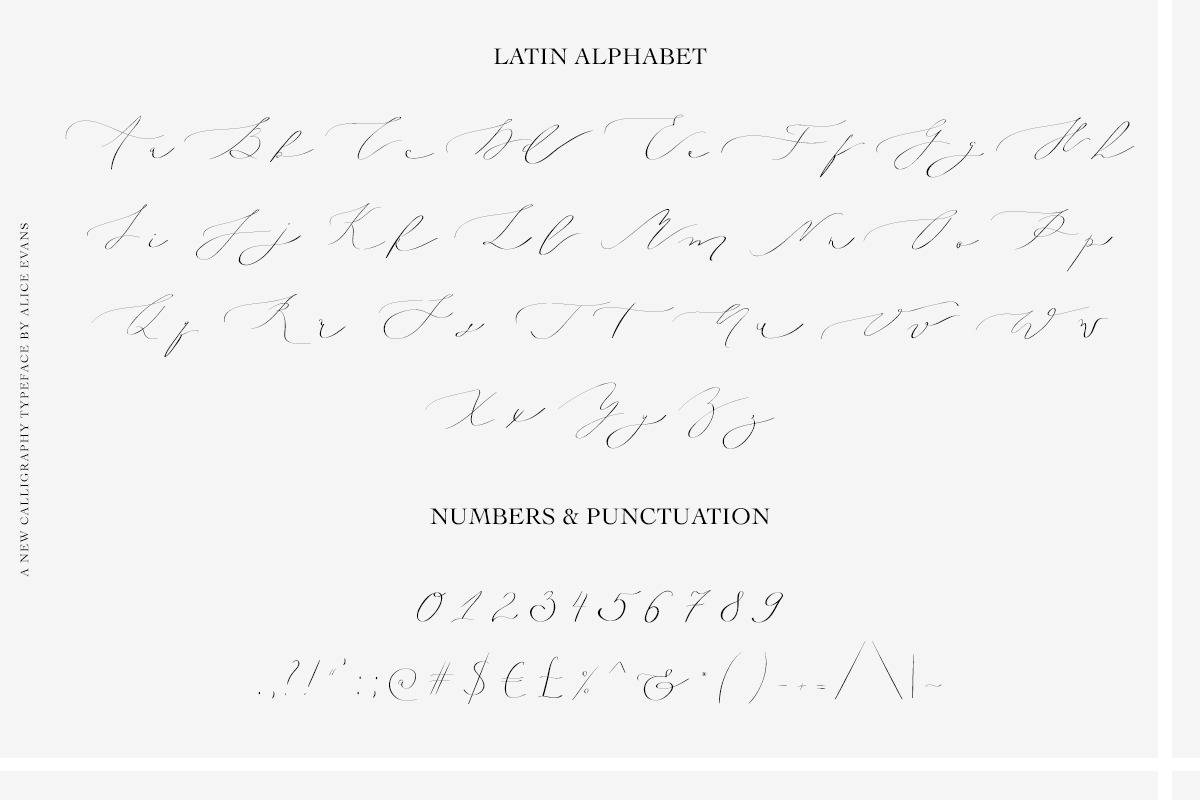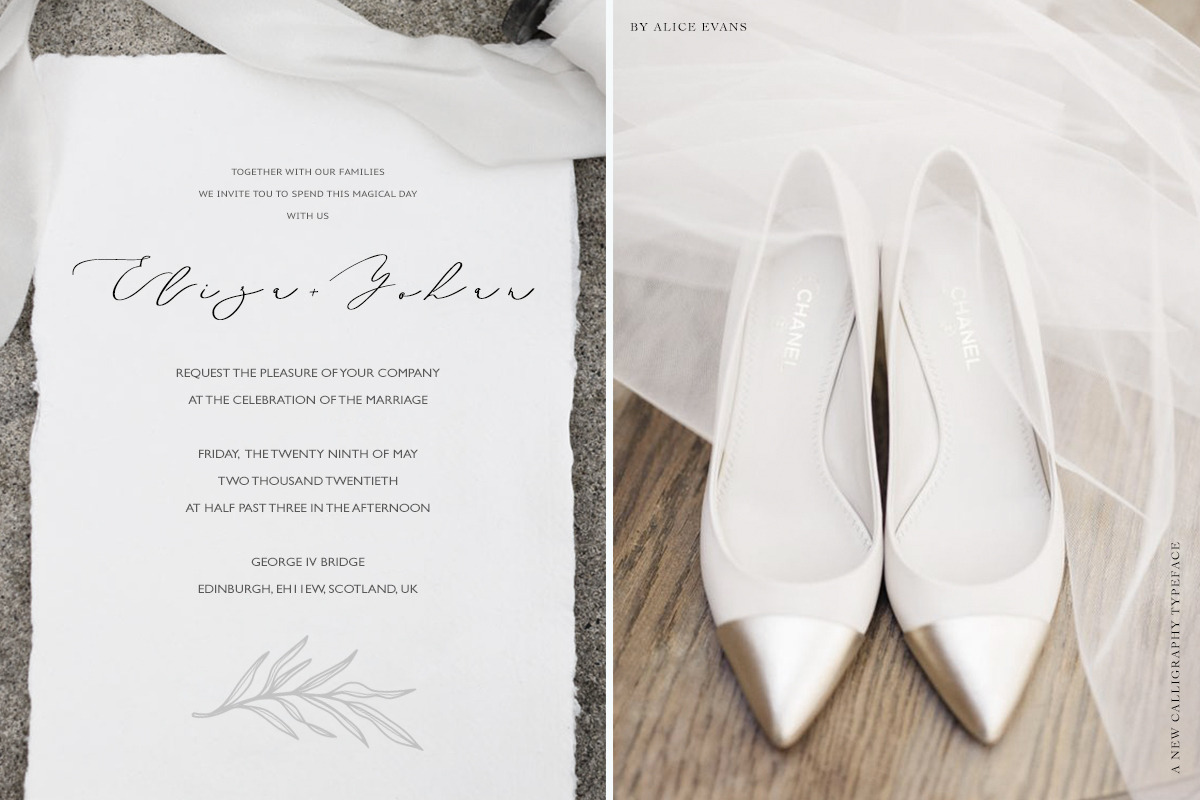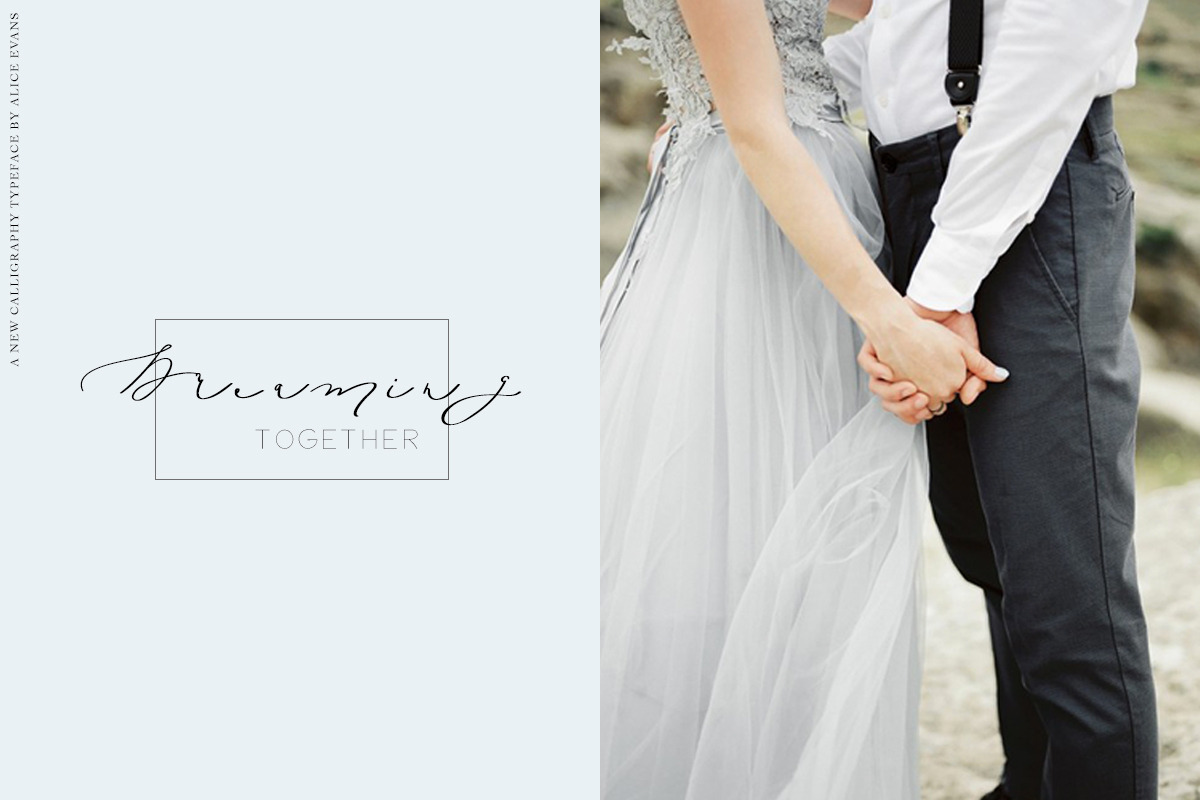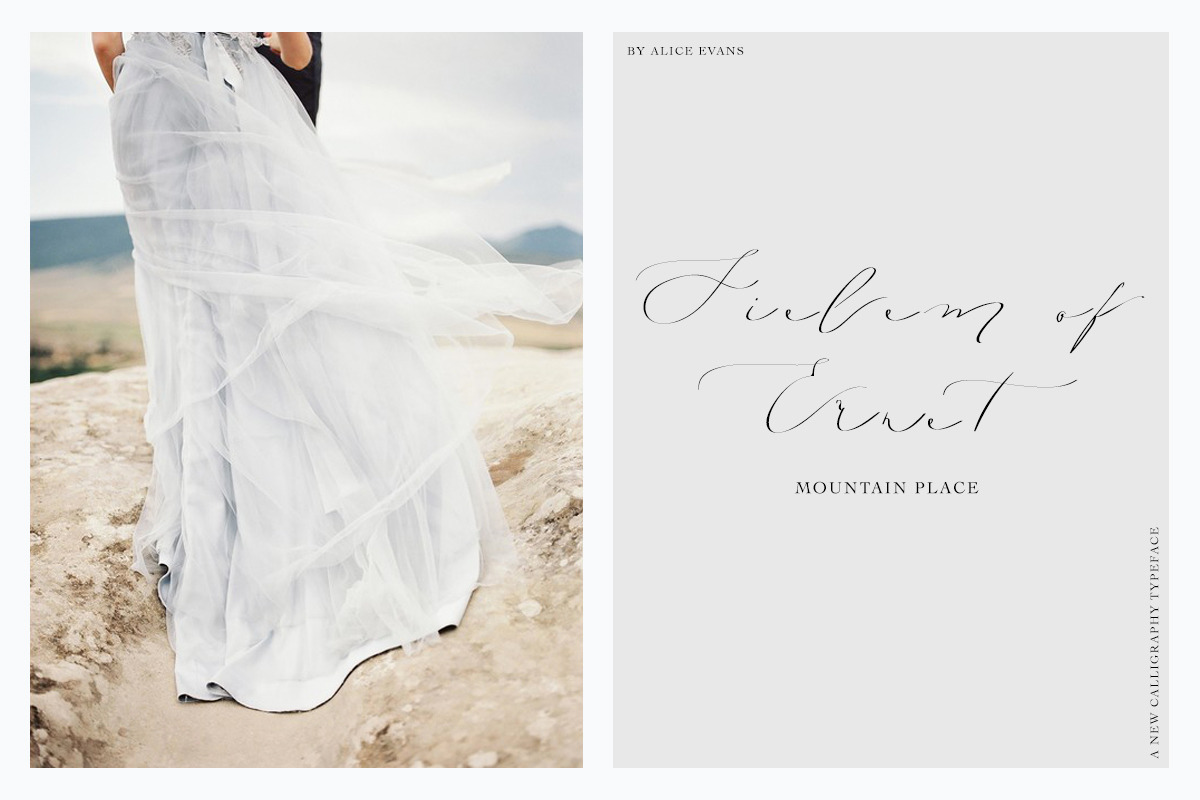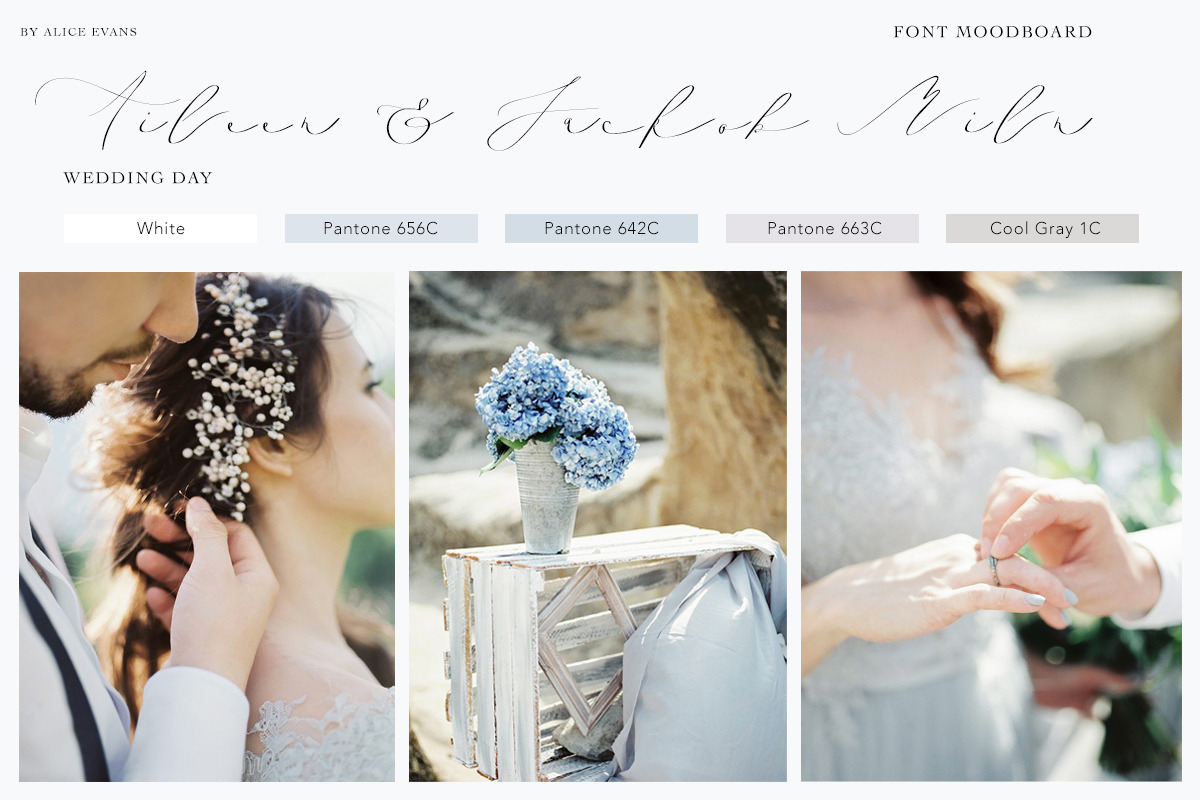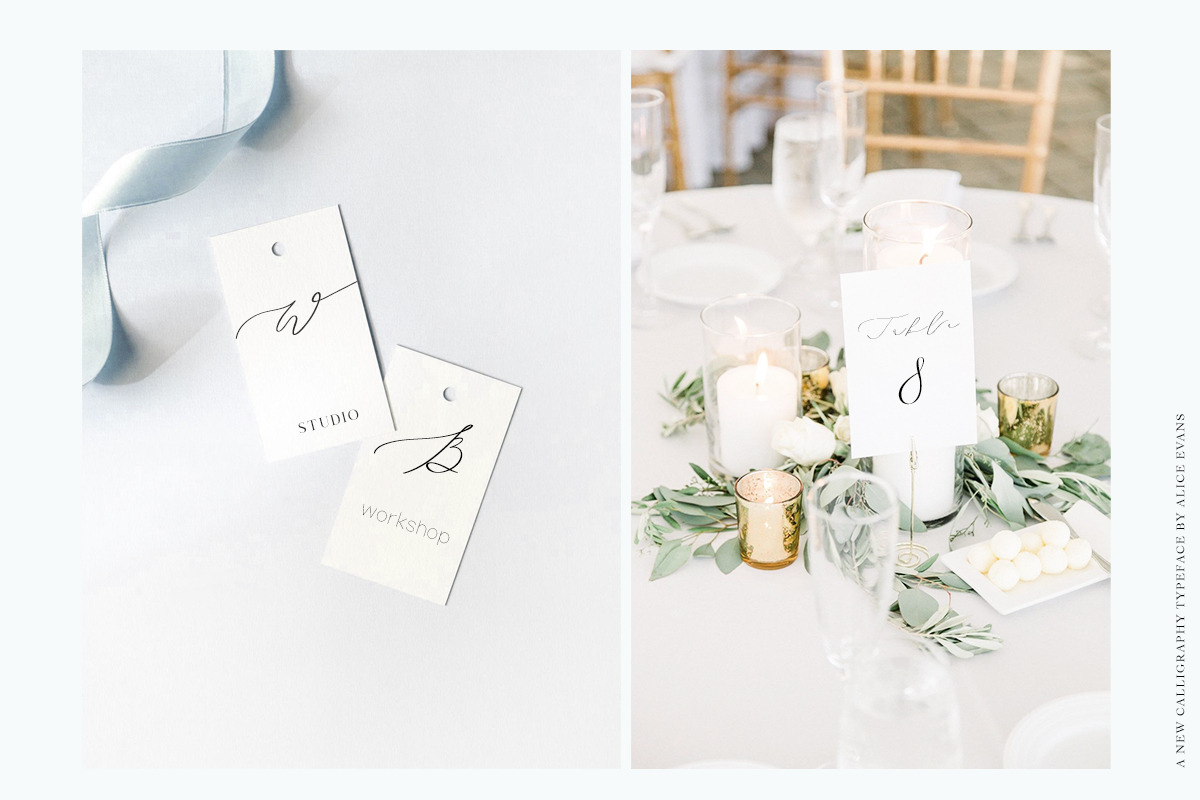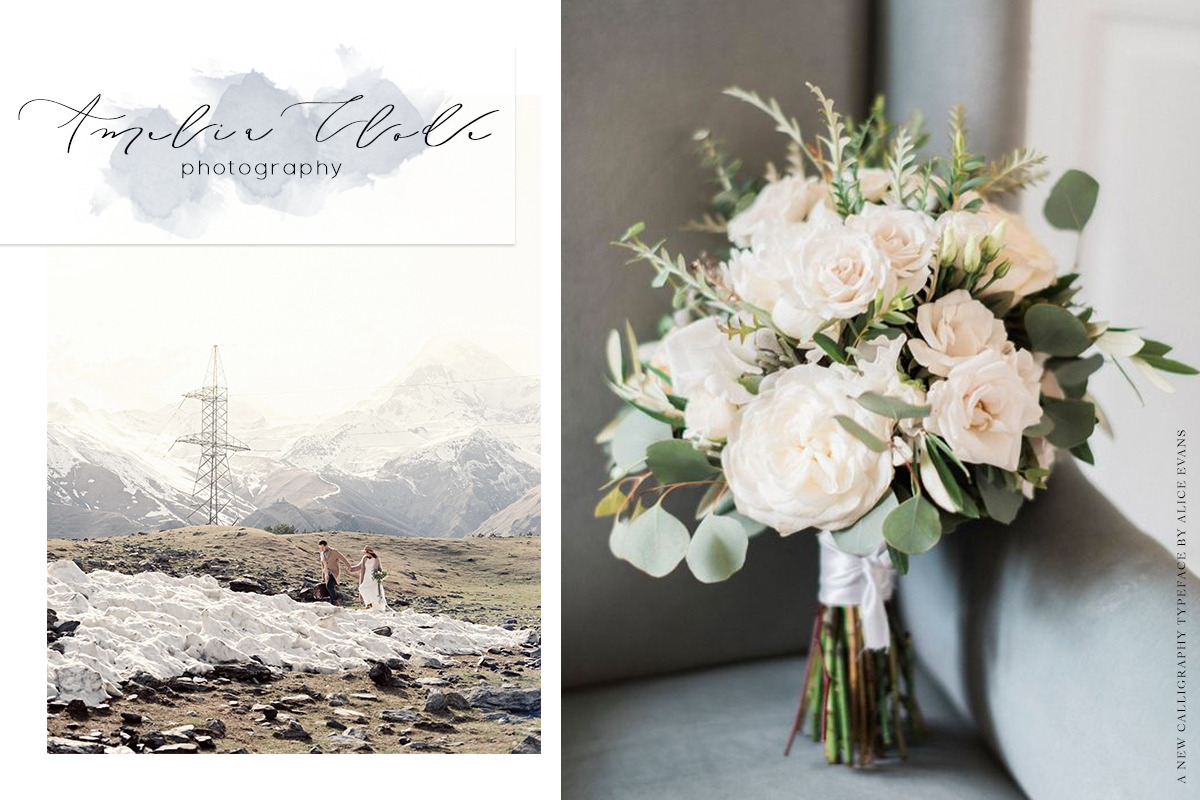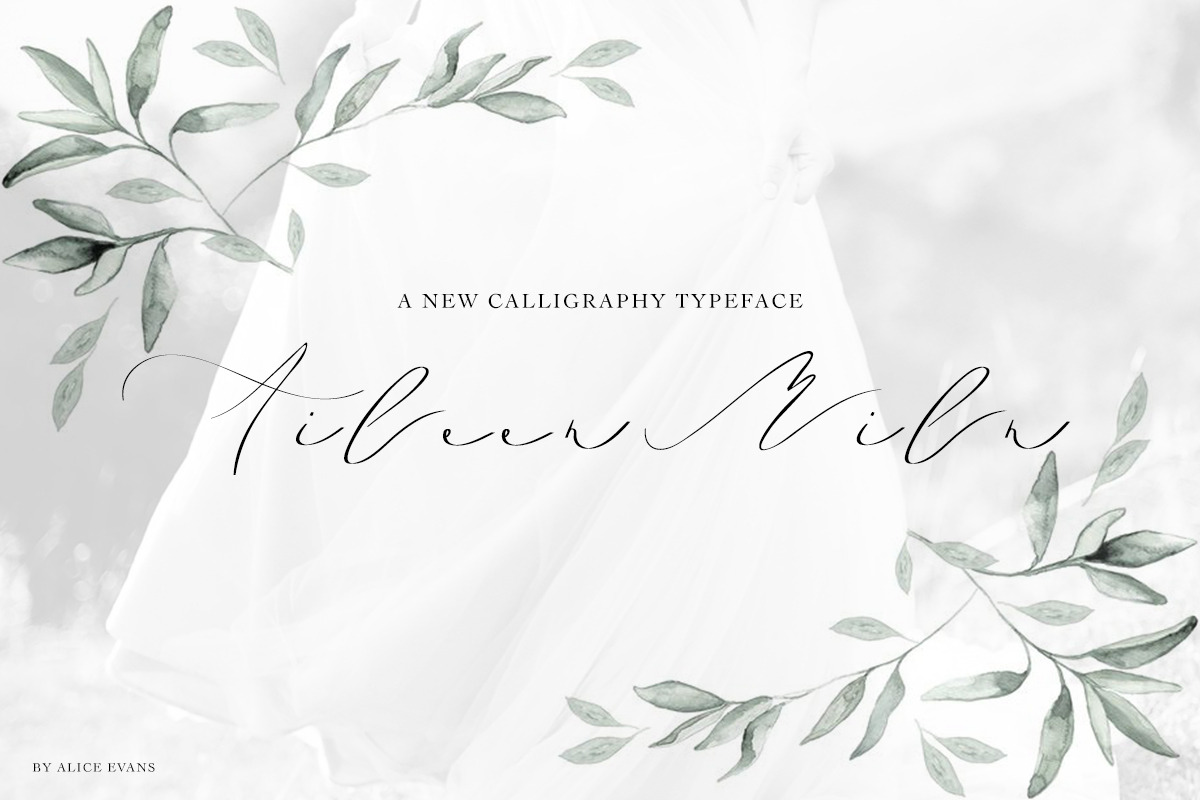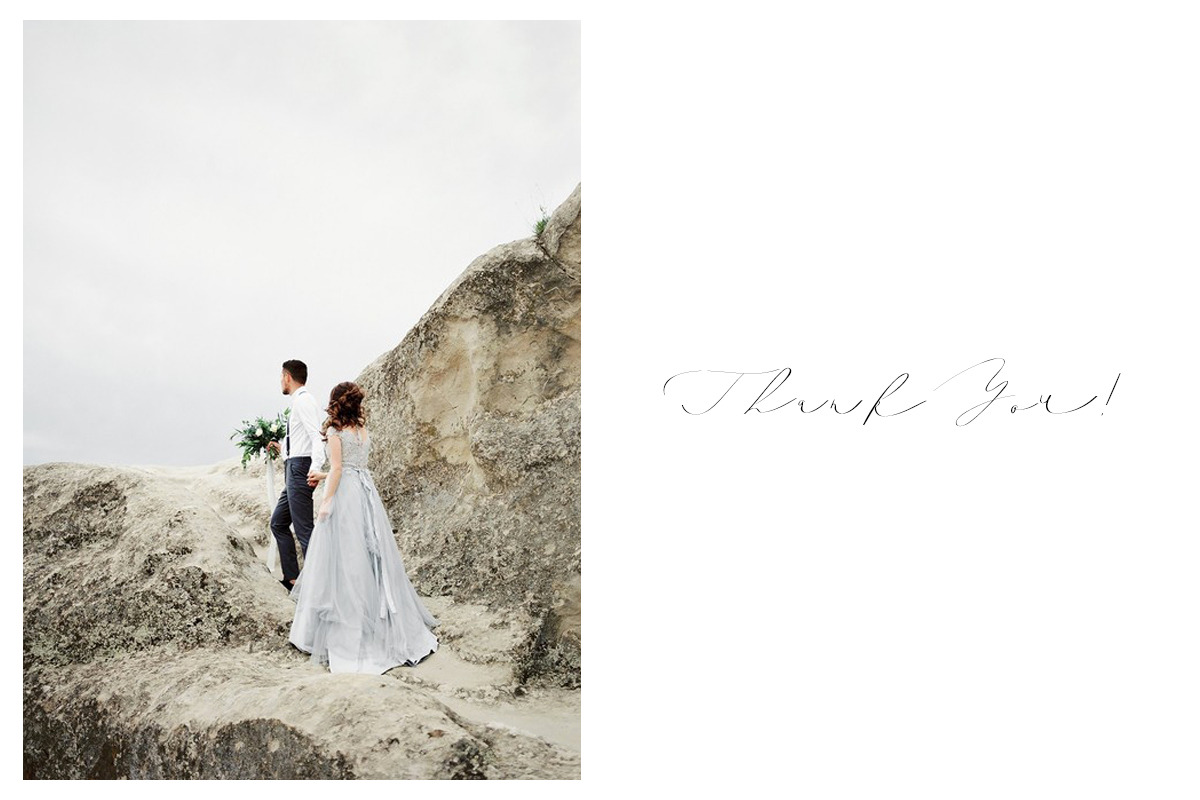
Aileen Miln Calligraphy typeface
I created this font when I was inspired by wedding decorations and photography, light and airy brides and calligraphy details. This font has not any joints between characters, that's not a fault but the idea. If case you don't like this specific you may easily use it not for a long text but for initials or naming as well. I have shown some examples of using in this presentation too.
- x 26 calligraphy Latin Uppercase A-Z
- x 26 calligraphy Latin Lowercase a-z
- 0-9 numbers
- basic symbols